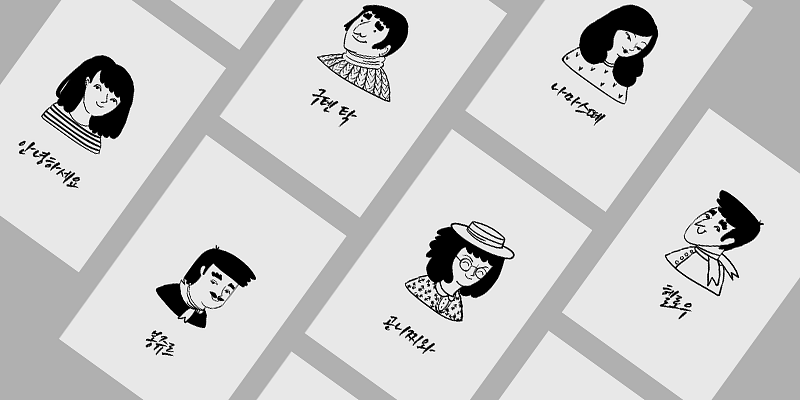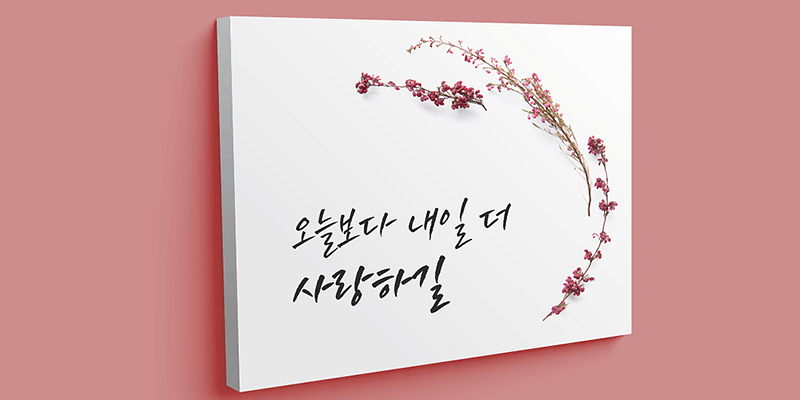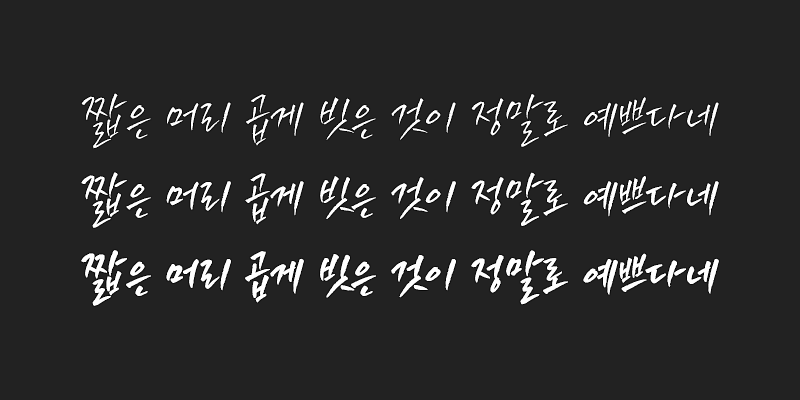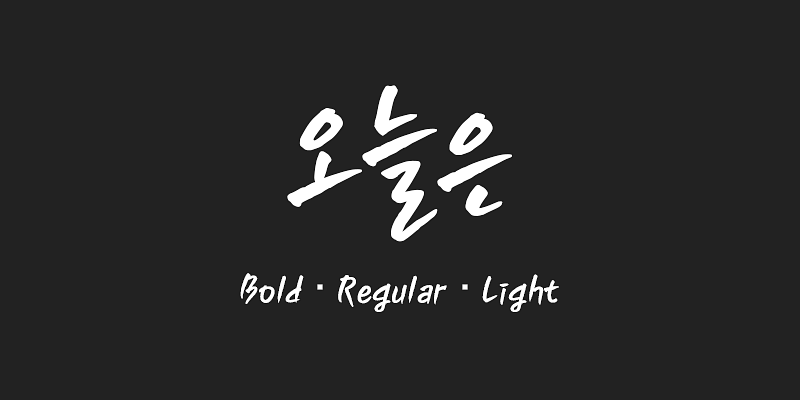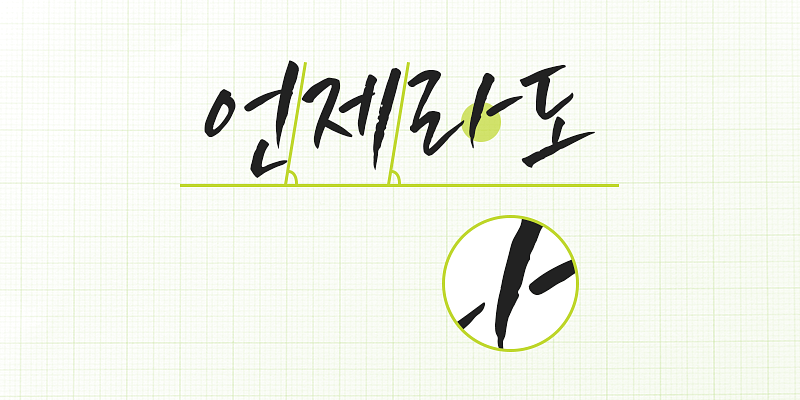
210 Ohneuleun is a font based on a calligraphy artist’s writing. It recreates the texture and difference in pressure produced when writing with a brush. The slightly slanted letters express the speed in which the letters were written, and overall carry an energetic rhythm.